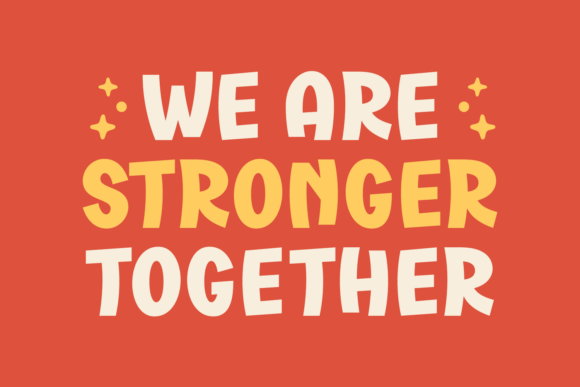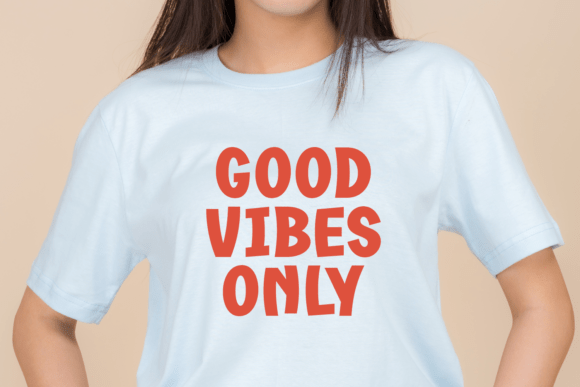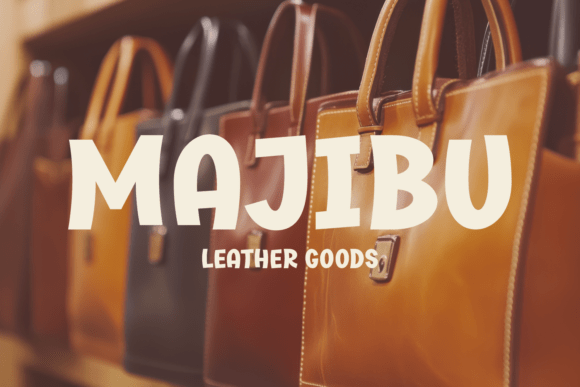
Introduction to Never Hyper Font
Never Hyper is a soft and unique display font that combines a modern aesthetic with a friendly, approachable feel.
Its thick and smooth curves create a warm and inviting look, making it perfect for posters, branding, packaging, headline, and other projects that require a refined and professional font .